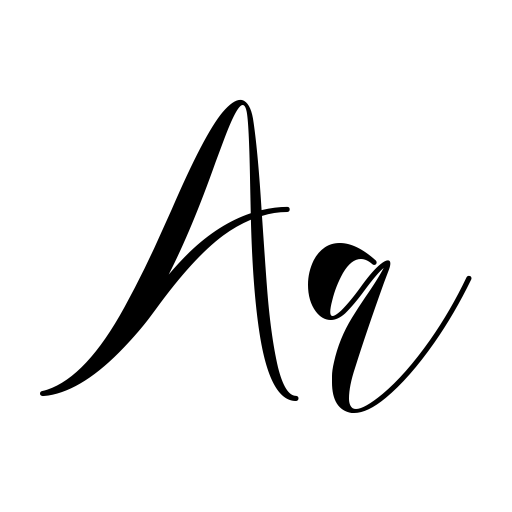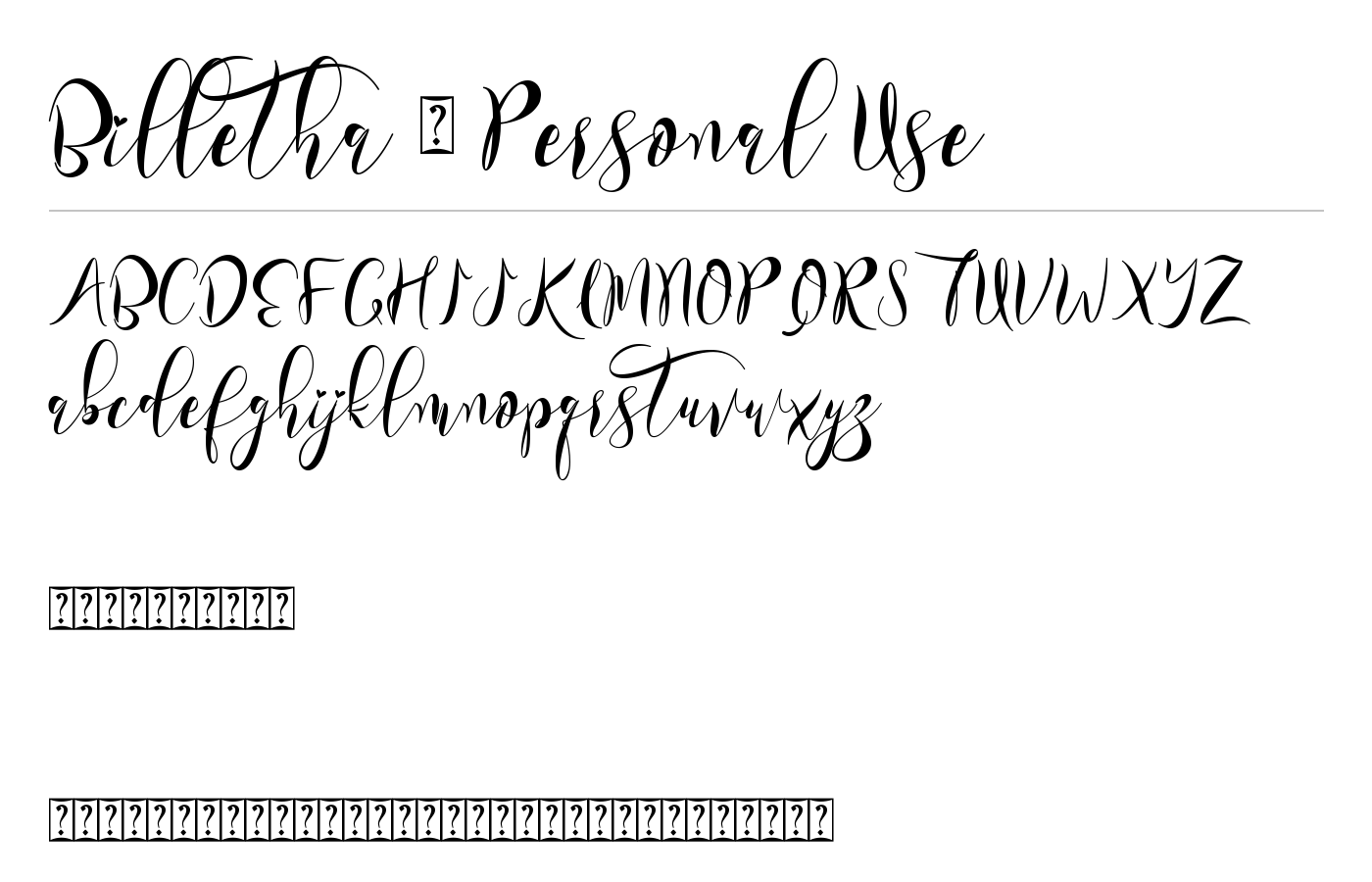
Billetha is an elegant, flowing script font that features delicate, high-contrast strokes and graceful swashes, giving it a sophisticated and romantic feel. Its tall, slender letterforms and ornamental details make it ideal for personal branding, wedding invitations, or fashion-related designs where a touch of refined beauty is desired. This font shines in headlines and decorative uses, adding a stylish and expressive flair to any project.
Billetha Font
About Billetha Font
| Font family | Billetha Font |
| Designer | Yoga Letter 2020 (Isroni Yoga Prasetya) |